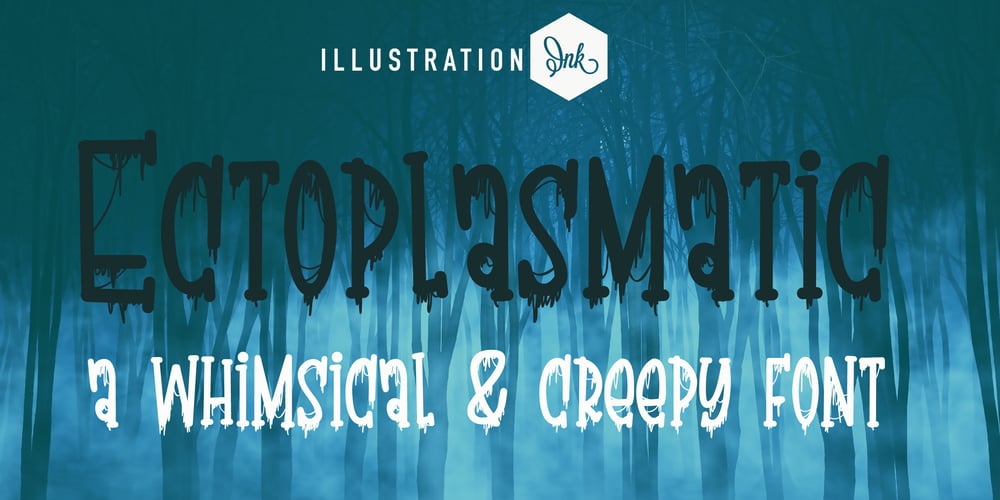
ZP Ectoplasmastic Font Family was designed by Illustration Ink and published by Illustration Ink. ZP Ectoplasmastic contains 1 styles and family package options. This hand-written serif font is dripping with ectoplasm for a creepy, scary feel. A hand-crafted font is a font that is designed to look like it was written by hand. It is often used for invitations, greeting cards, and other items. Handwritten fonts can be either formal or informal, and they can be used for a variety of purposes.Some of the characteristics of handwritten fonts include: The letters are not perfectly uniform in size or shape. There may be slight variations in the spacing between letters and words. The font may have a “wiggly” or “squiggly” appearance. The font may be difficult to read at small sizes. Handwritten fonts can be a great way to add a casual touch to your designs. They can also be used to create a sense of nostalgia or whimsy. However, it is important to choose a handwritten font that is appropriate for the project you are working on. A formal handwritten font may not be appropriate for a casual invitation, while an informal handwritten font may not be appropriate for a corporate document.